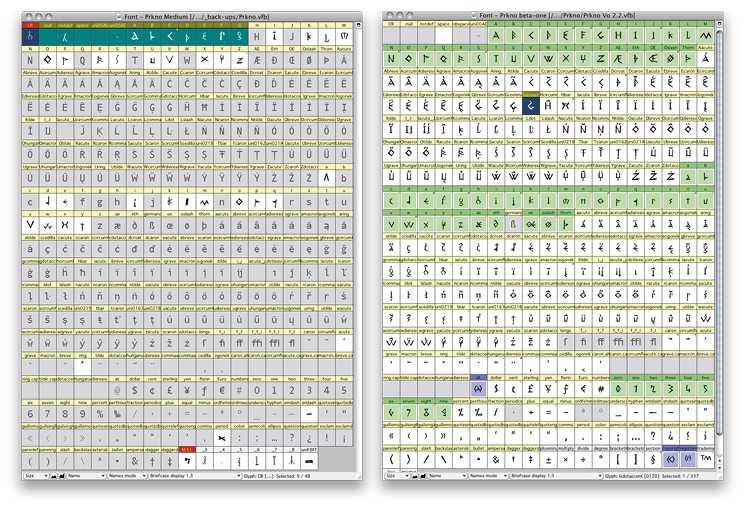
The original version of the Prkno typeface was designed by Petr Babák in 1992. The digital version was made anonymously some time in the mid-nineties; only a few basic letters have been designed by then. Briefcase will offer an updated, completely redesigned version, which contains a full glyph-set in line with our usual standards. Compare the original version (left) with the new upcoming one (right).